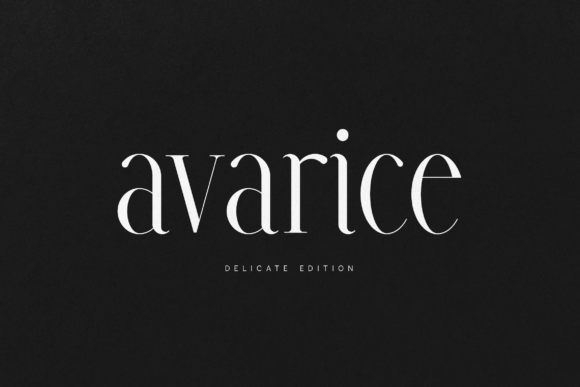
The Elegance of Avarice Delicate: A Designer’s Dream Font
I still remember the project that made me fall in love with the Avarice Delicate font. I was working on a luxury branding campaign for a high-end fashion client, and I was struggling to find the perfect typeface that exuded sophistication and elegance. The client wanted a font that would make their brand stand out, yet convey a sense of refinement and poise. After hours of searching, I stumbled upon Avarice Delicate, and it was love at first sight. ✨
- ✨ The dramatic contrast between thick and thin strokes creates a striking visual effect that’s perfect for headlines and titles.
- ✅ The delicate hairlines and sculpted serifs add a touch of sophistication and luxury to any design.
- ✅ The font’s unique character shapes make every word feel like a piece of bespoke art.
- ✅ Avarice Delicate is incredibly versatile, making it suitable for a wide range of applications, from storefront signage to cinematic title sequences.
While Avarice Delicate is an exceptional font, there are a few things to keep in mind: ⚠️
- ⚠️ The font’s delicate nature can make it challenging to read in smaller sizes, so it’s best used for large-scale applications.
- 🤔 Some users may find the font’s high-contrast strokes and intricate details require more processing power, which can be a consideration for those with lower-end hardware.
The Backstory of Avarice Delicate
The story goes that Avarice Delicate was created by a team of designers who wanted to craft a font that embodied the essence of luxury and sophistication. Inspired by the works of classic typographers, they poured their hearts and souls into creating a font that would exceed expectations. The result is a masterpiece of modern serif design that exudes elegance and refinement.
Q: Is Avarice Delicate suitable for body text?
A: While Avarice Delicate is an exceptional font, it’s best suited for large-scale applications, such as headlines and titles. For body text, consider using a font with a more traditional serif design.
Q: Is Avarice Delicate available in different weights?
A: Yes, Avarice Delicate comes in a range of weights, from light to bold, allowing you to experiment with different styles and applications.
Q: Can I use Avarice Delicate for digital applications?
A: Absolutely! Avarice Delicate is optimized for digital use and looks stunning on screens, making it perfect for website headers, social media graphics, and more.